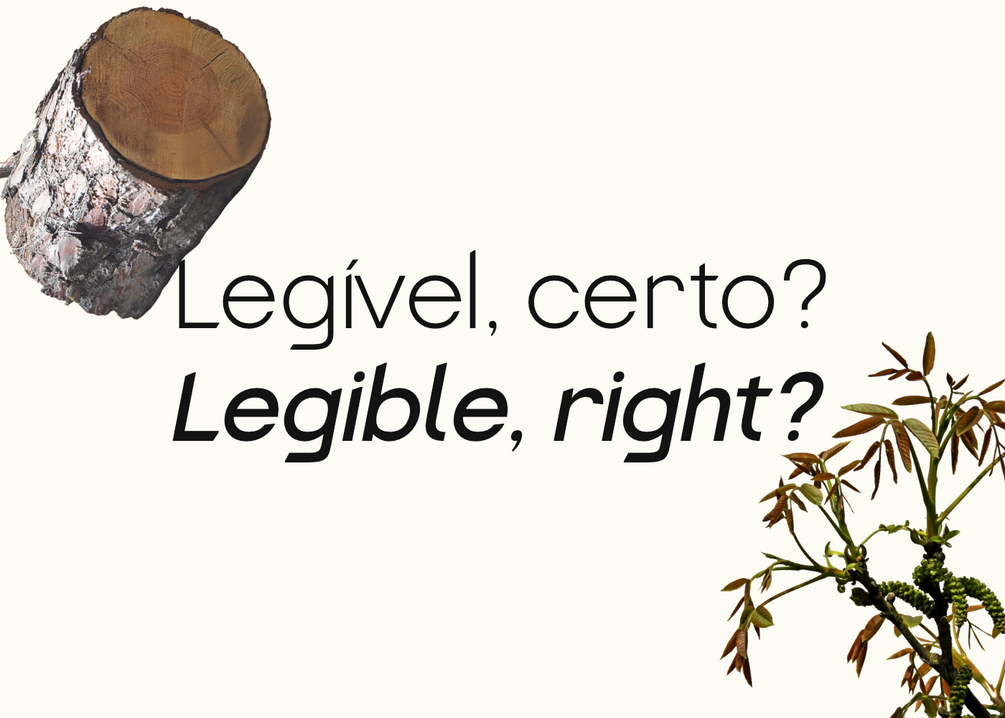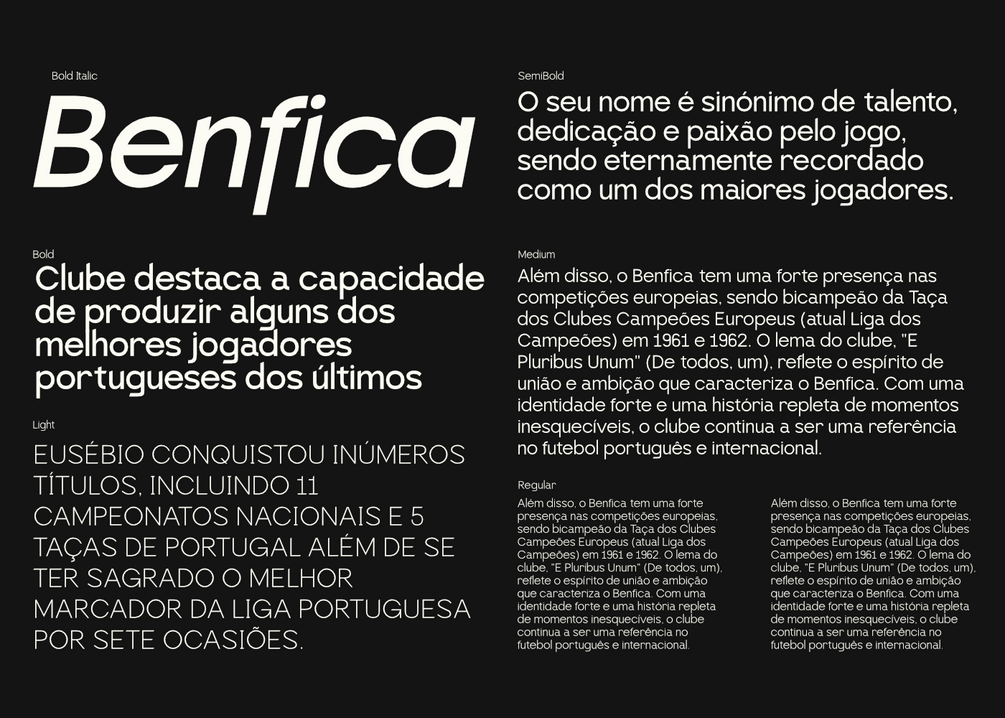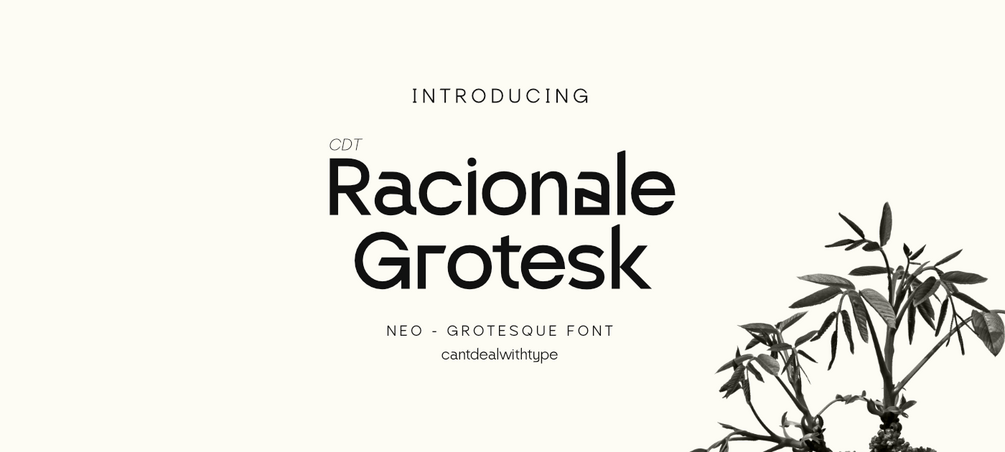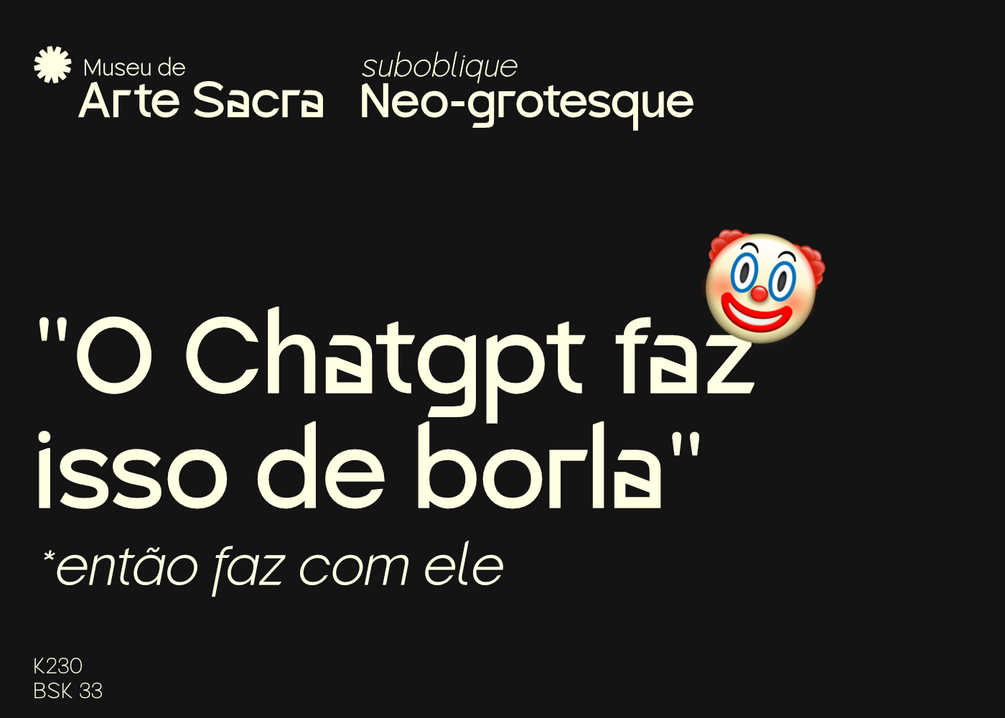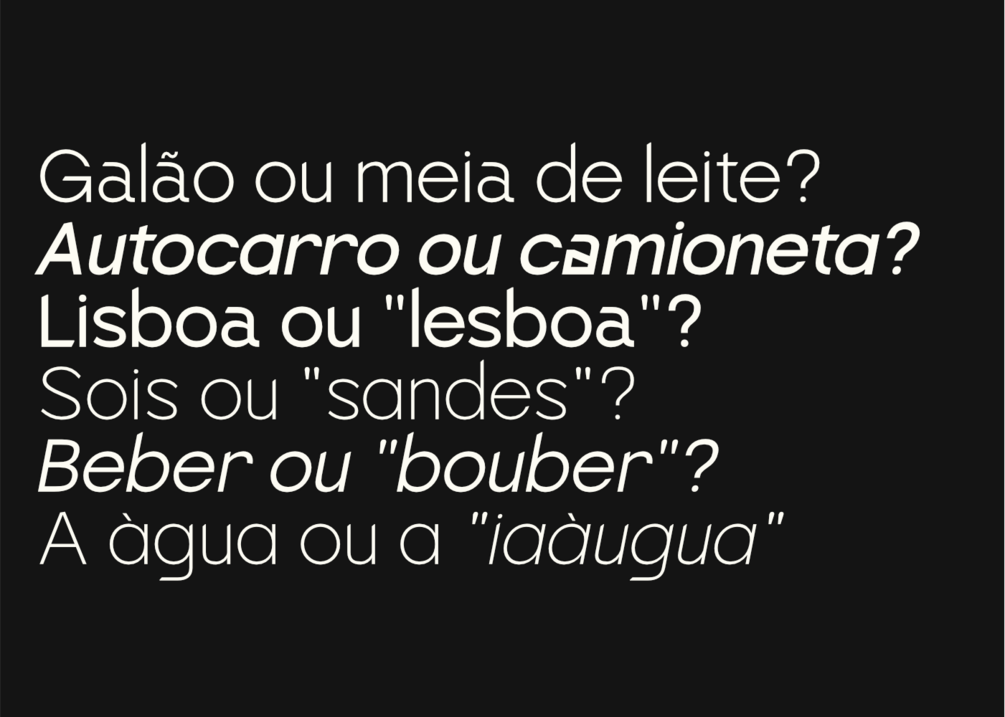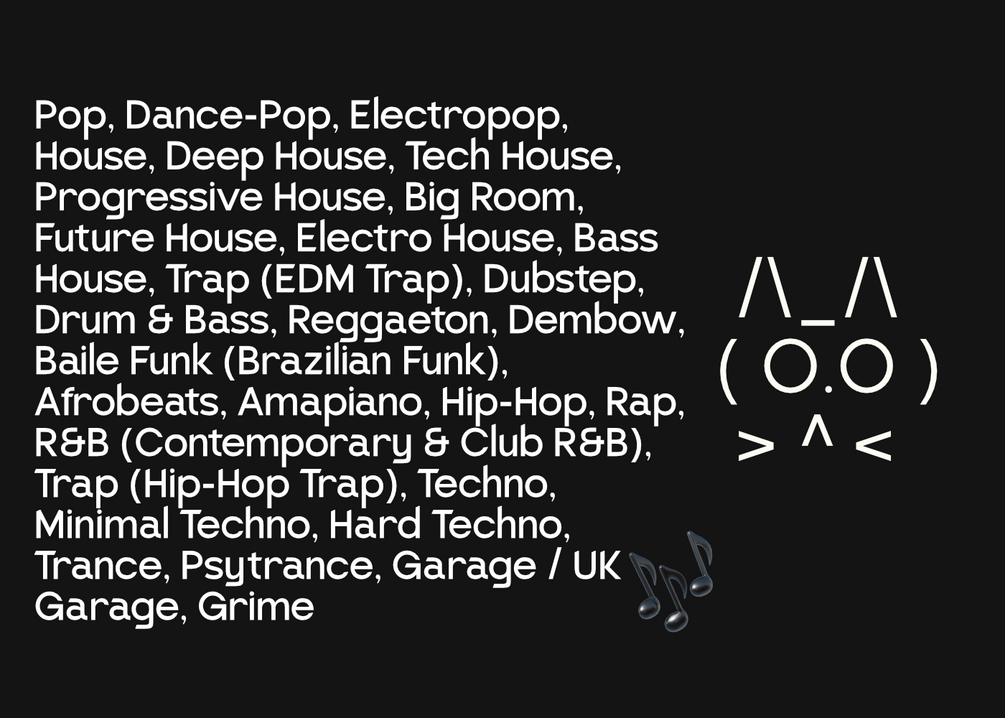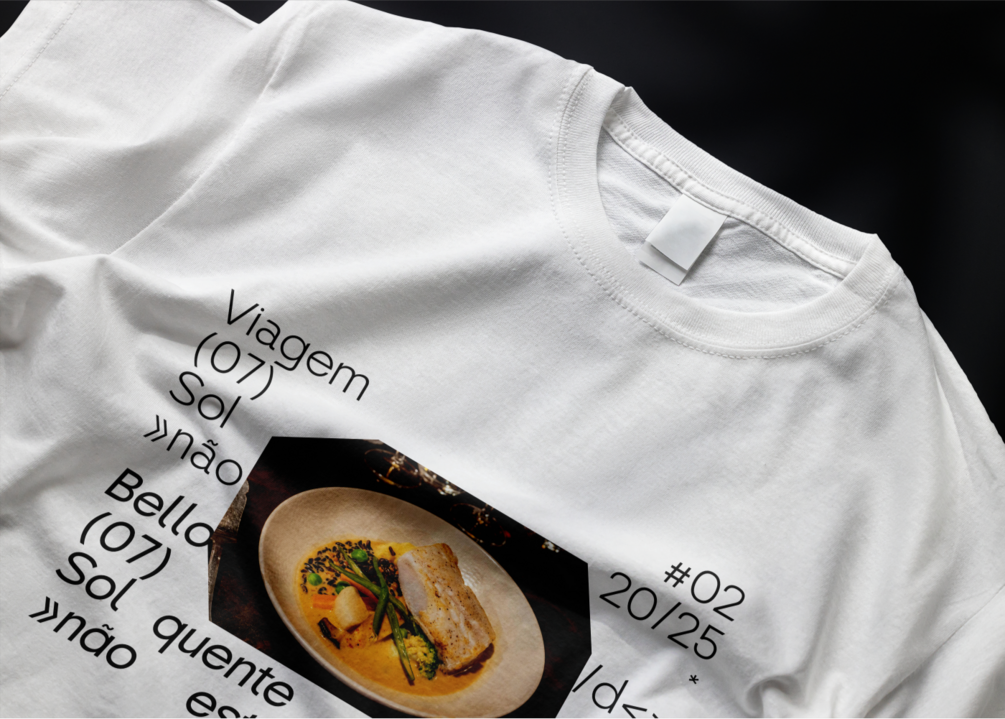
CDT Racionale Grotesk Typeface (Free Style)
Walks the fine line between order and playfulness. It’s a rebel neo-grotesque, clean and organized at first, but if you look closer, you’ll spot its quirkiness and bizarre details.
Available in five weights and 10 styles, including Light, Regular, Medium, Semibold, Bold, and their corresponding Obliques. With a playful set of alternate characters, this typeface favours those who want to break the rules and get innovative. Perfect for bold branding, editorial work, or anywhere you want to add a touch of innovation and quirkiness.